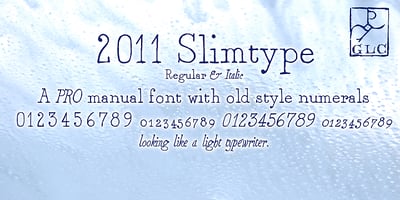
2011 Slimtype Font Family was designed by Gilles Le Corre and published by GLC. 2011 Slimtype contains 2 styles and family package options. This light manual font, with two styles, is a looking like slab serif or typewriter pattern. It is containing Western and Northern European, Icelandic, Baltic, Eastern, Central European and Turquish specific characters, plus old style numerals, ct, st and f standard ligatures. The two styles are both legible from 10-11 pts.